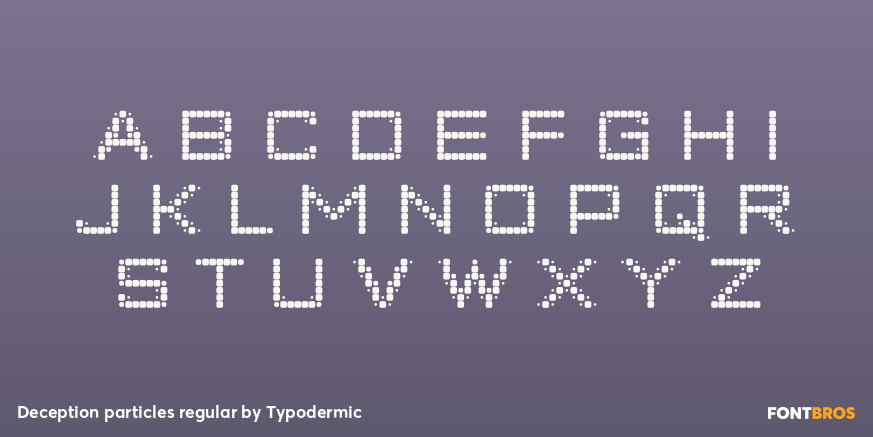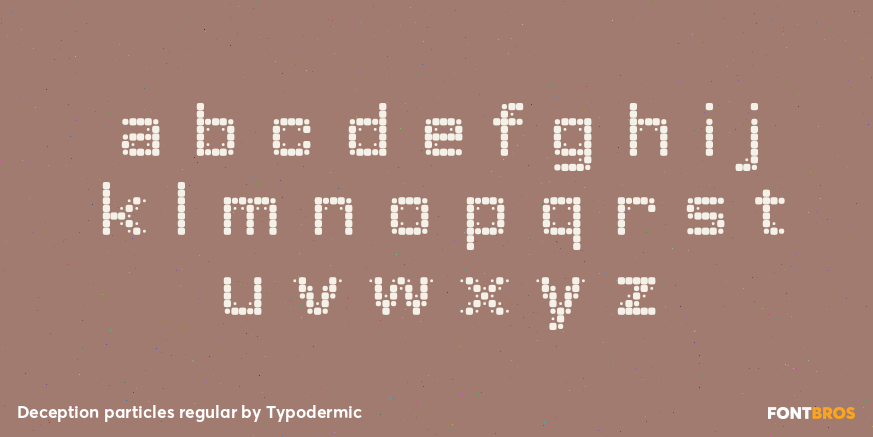
Deception particles regular
Deception Particles breaks the letterforms into dispersed dots and fragments, catching the moment when an image is either assembling from data or dissolving into noise. It is the family’s most atmospheric treatment, useful when uncertainty, loss, reconstruction, or emergence is central to the message.
Use Particles for deepfake investigations, data-recovery stories, point-cloud visualization, digital-preservation exhibits, visual-effects reels, science installations, and motion titles that form or scatter on screen. Regular creates a lighter field; Bold retains more force in large projections and posters.
Deception particles regular by Typodermic